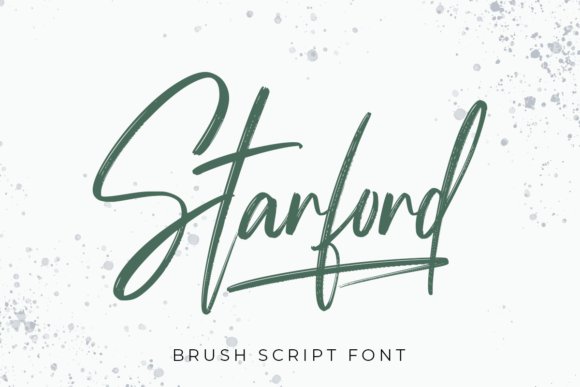
Dive into Starford Handwriting Brush Font, a mesmerizing script font that's calligraphy encapsulated in a digital masterpiece. Its elegant brush strokes and enchanting curves add a touch of magic to any design project. Whether you're a seasoned designer or just starting out, Starford has something to inspire everyone.
With its unique Single Path Fonts For Cricut, Starford makes intricate designs a breeze. Unleash your creativity and create elaborate designs with effortless precision. Elevate your art to new heights with this amazing font that transforms words into works of art.
Bring your branding to life with Starford. Its bold personality makes a lasting impression, leaving your audience captivated and inspired. Create eye-catching quotes, inspiring posters, and heartfelt greeting cards that resonate with your audience. From elegant wedding invitations to professional business cards, Starford adds a touch of class and sophistication to every piece.
With Starford, logos and lettering take on a whole new meaning. Its distinct style makes your designs stand out from the crowd. Transform ordinary text into captivating headers, eye-catching logos, and stunning lettering that commands attention. Imagine your designs adorned with Starford, leaving an unforgettable impact on all who see them.
Unleash your artistic side and embark on a journey of creativity with Starford. Whether you're designing for t-shirts, mugs, or any other personalized items, Starford infuses your designs with a touch of enchantment. The possibilities are endless, so let your imagination run wild and create designs that are truly unique and captivating.